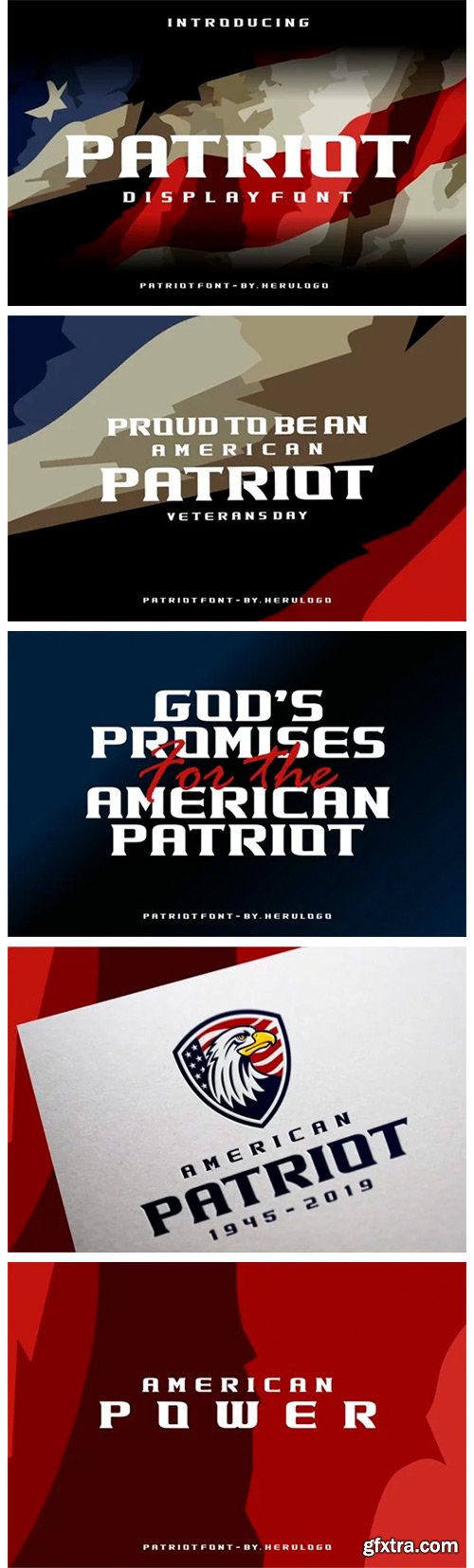
Patriot Font
Patriot is a strong, powerful and royal display font. Show your patriotism with this stunning display font, and use it to turn any 4th of July craft into a standout!